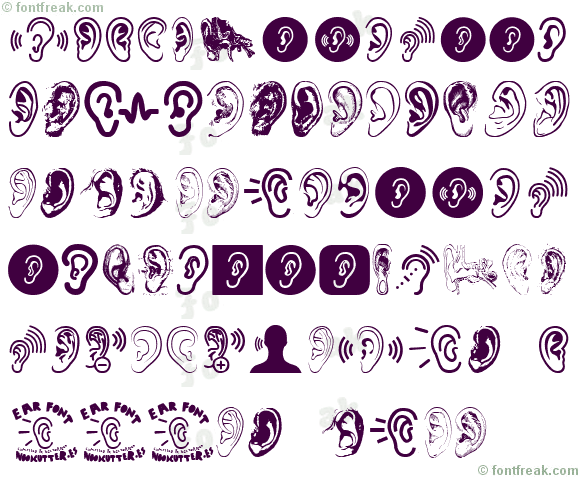
Ear
About Ear
Ear by woodcutter Manero is a captivating decorative typeface that takes inspiration from both organic forms and contemporary design elements. This unique font features a playful yet sophisticated style, showcasing a balance between whimsical shapes and functional typography. The stroke weight varies throughout the characters, creating a dynamic visual appeal that draws attention without overwhelming the viewer. The spacing is thoughtfully designed, ensuring readability while maintaining a distinctive character that sets it apart.
This font is particularly well-suited for a variety of creative applications. It shines in wedding invitations, where its charming and whimsical nature can add a personal touch. Additionally, Ear is ideal for movie posters, helping to convey a sense of intrigue and creativity that resonates with potential viewers. Its unique aesthetic makes it a great choice for restaurant menus, where it can enhance the dining experience by appealing to patrons' senses. Content creators and graphic designers will find this font useful for social media graphics and branding projects, allowing them to stand out in a crowded digital landscape.
What makes this font truly remarkable is its ability to blend artistic flair with practical usability. The intricate yet approachable design invites users to explore its potential in various contexts, making it a versatile addition to any designer's repertoire. Whether for personal projects or professional endeavors, Ear by woodcutter Manero is sure to leave a lasting impression.